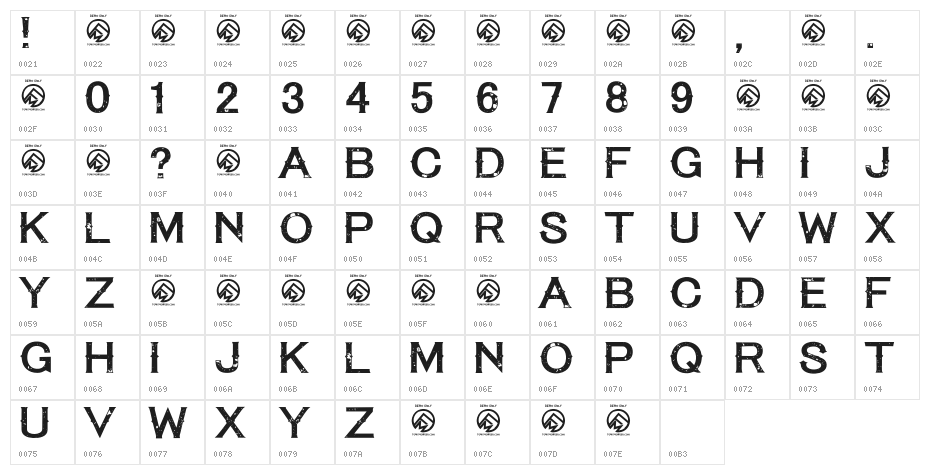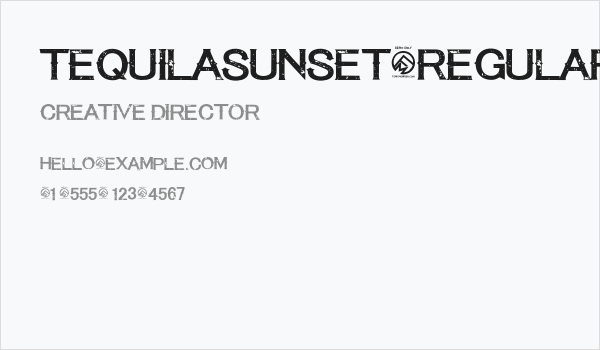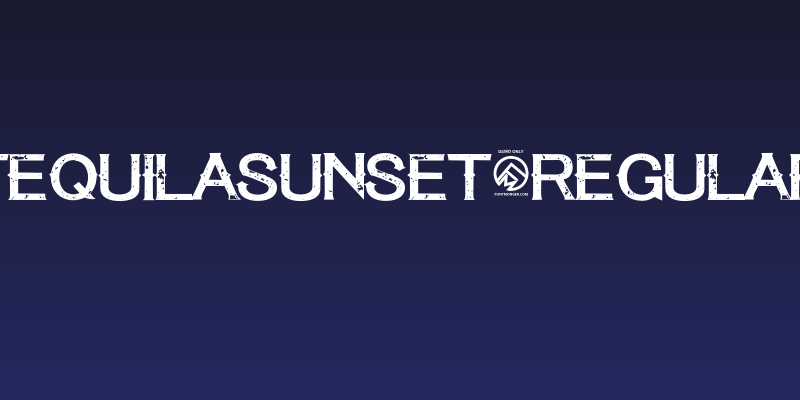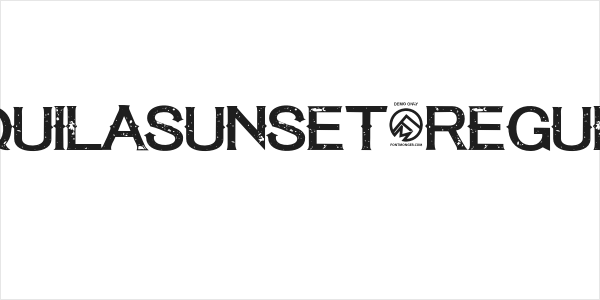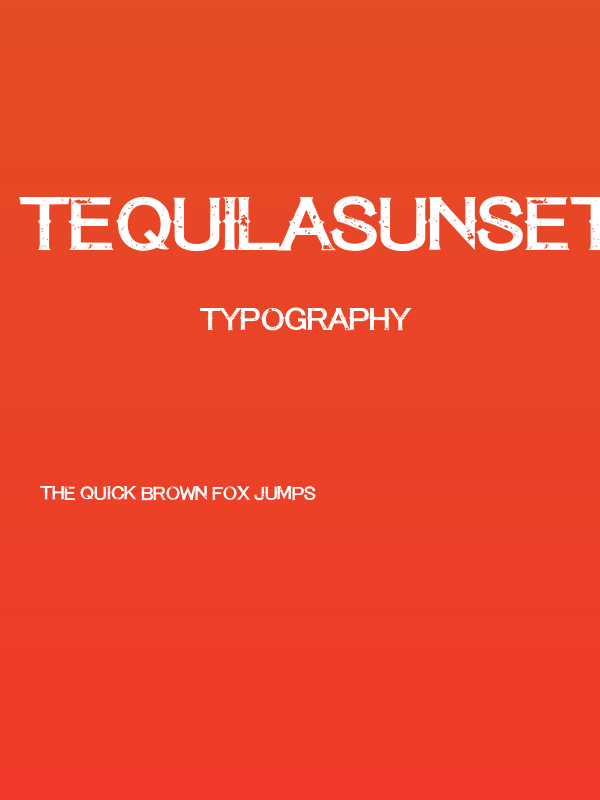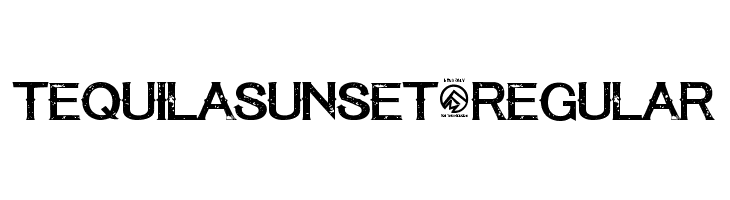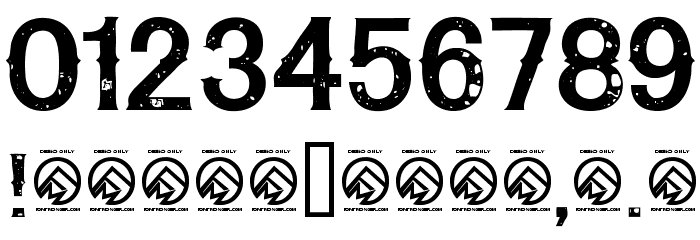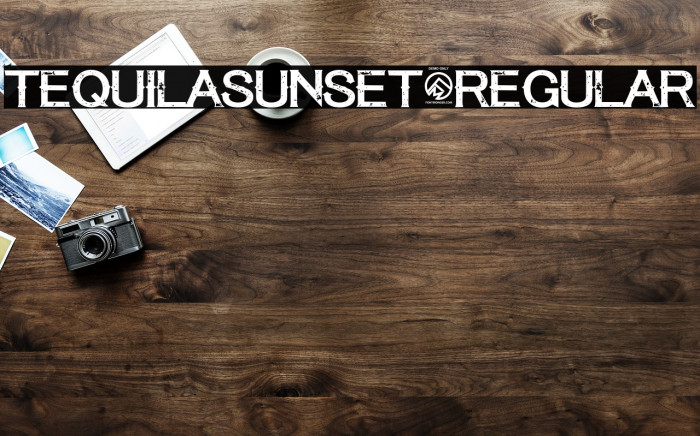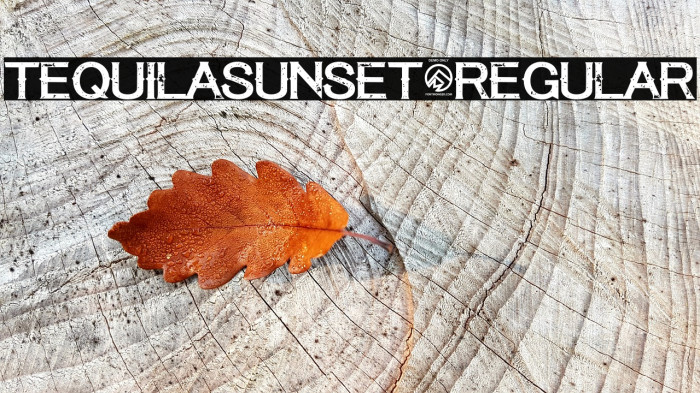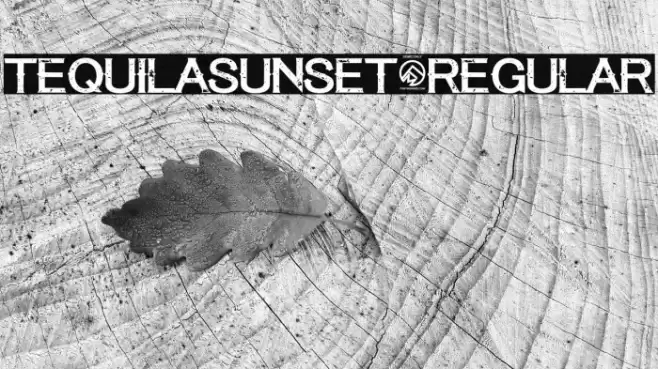
TequilaSunset-Regular Font
TequilaSunset-Regular Description
This font features a bold and distressed style, reminiscent of vintage or retro aesthetics. The characters have a rough, textured appearance, giving them a worn, weathered look. This adds a sense of character and authenticity, making it ideal for projects that require a rustic or industrial feel. The uppercase and lowercase letters are consistent in style, maintaining the distressed effect throughout. The numbers and special characters also share this unique texture, ensuring a cohesive look across all text elements.
| Overall Style | Vintage |
| Use Case | Logos, Headlines, Posters |
| Proposed Projects | Ideal for branding, posters, album covers, and any design that seeks a rustic or industrial vibe. |